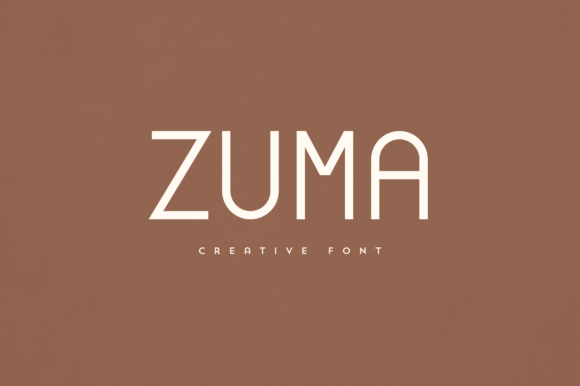
Embark on a typographic odyssey and unveil the allure of Zuma Font, a sans serif masterpiece that will set your designs ablaze. A creation of vladfedotovv, this font family embodies elegance and versatility, transforming your typography into an exquisite work of art.
With Zuma Font, elevate your logos, branding, and headlines to new heights. Its captivating curves and distinctive letterforms lend an air of sophistication to every word, turning ordinary text into a symphony of visual delight.
Immerse yourself in the world of home-ware designs, let your imagination run wild as you craft unique product packaging, and design magazine headers that demand attention. Zuma Font seamlessly adapts to your creative vision, enhancing your designs with a touch of timeless elegance.
Feel the power of Zuma Font's versatility as you effortlessly overlay stylish text onto any background image, creating captivating visuals that captivate and inspire. Its versatility extends to a wide range of applications, from web design to print media, making it the perfect choice for designers of all levels.
Unleash your creativity and let Zuma Font ignite your designs. Whether you're crafting a striking logo, creating eye-catching branding materials, or simply adding a touch of elegance to your text, Zuma Font is the key to unlocking your typographic potential.
Experience the beauty and versatility of Zuma Font today. Let your words dance across the screen or printed page, captivating your audience with their newfound grace and sophistication. Embrace the transformative power of typography and witness the magic of Zuma Font bring your designs to life.